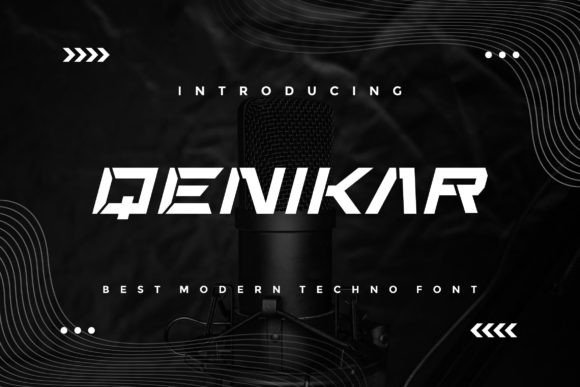
Qenikar: The Modern Display Font for Creative Projects
Introduction — What is Qenikar?
Qenikar belongs to the exclusive world of Display fonts, designed specifically to catch the eye and convey personality instantly. Unlike standard body text typefaces, this premium Display font prioritizes character and impact over long-form readability. It features clean lines with subtle geometric quirks that give it a distinct identity. When you choose to download Qenikar font free, you are acquiring a versatile asset suitable for headlines, logos, and large-scale graphics. Its structure allows it to function as a free Display font for Fonts enthusiasts who want professional results without breaking the bank.
Design & Style Analysis
The visual personality of Qenikar is defined by its confident stance and modern aesthetic. It avoids the clutter often found in retro styles, opting instead for a sleek, forward-thinking look that fits perfectly into 2024 design trends.
Letterforms and Weight
The letterforms in Qenikar are constructed with precision. The weights are balanced to ensure that thick strokes do not overpower thin ones, creating a harmonious rhythm. This balance makes it an excellent choice when comparing it to other professional Fonts font options in the market. The glyphs possess a slight humanist touch, preventing them from feeling too cold or robotic.
Spacing and Mood
Proper spacing is crucial for any best Display fonts for use case scenarios. Qenikar utilizes generous tracking by default, allowing letters to breathe while maintaining cohesion. The mood is energetic yet sophisticated, making it ideal for high-end branding or edgy editorial work. This attention to detail ensures that even at small sizes, the font retains its integrity.
Best Uses for Qenikar
This typeface shines brightest when applied to specific visual contexts where impact is paramount. Here is how designers can leverage its strengths across various mediums.
Qenikar for Logo Design
When brainstorming identities, Qenikar for logo design offers a strong foundation. Its distinct shapes allow for easy customization and icon integration. Because it is a premium Display font, it commands authority, which is essential for building brand trust immediately.
Qenikar for Branding
Consistency is key in visual identity. Using Qenikar for branding ensures that all marketing materials speak the same language. From business cards to billboards, the font maintains its legibility and style, reinforcing the brand message effectively.
Qenikar for Posters and Social Media
In the fast-paced world of digital content, grabbing attention is half the battle. Qenikar for posters/social media/packaging is a winning combination. The high contrast of the letterforms works beautifully on Instagram stories, event flyers, and product packaging where space is limited but visibility is critical.
Qenikar for Wedding Invitations
While often associated with modern tech, Qenikar for wedding invitations/cards/typography can add a chic, non-traditional twist to stationery. It pairs well with minimalist layouts, offering a fresh alternative to classic script fonts.
Font Pairing & Combinations
Selecting the right companion typeface is just as important as choosing the headline font. Many designers ask, "what fonts pair well with Qenikar?" because finding a match that balances its boldness is key.
For a Qenikar font pairing strategy, consider combining it with a clean sans-serif like Helvetica or Open Sans. This creates a perfect contrast between the expressive display head and the neutral body text. Alternatively, if you need a more elegant touch, a delicate serif like Playfair Display can soften the edges of Qenikar. These best font combinations with Qenikar ensure that your design remains readable while retaining its stylistic flair.